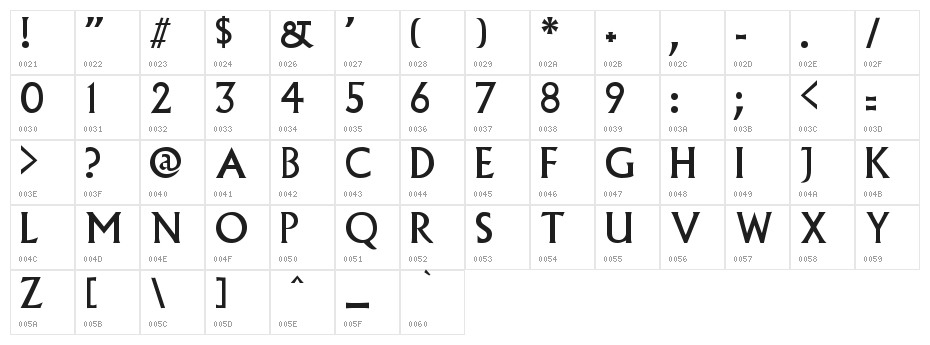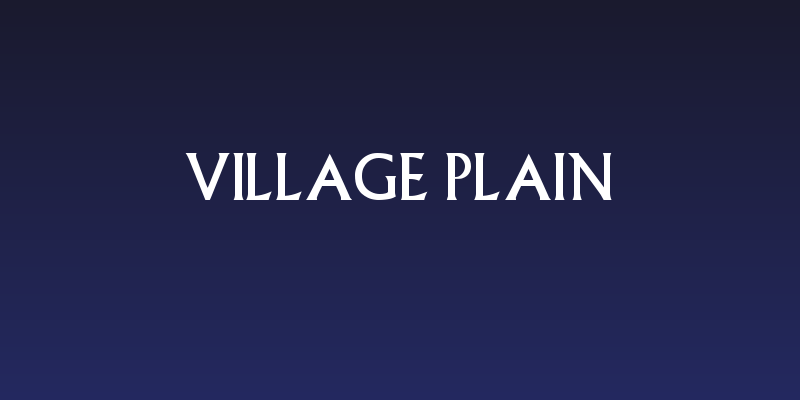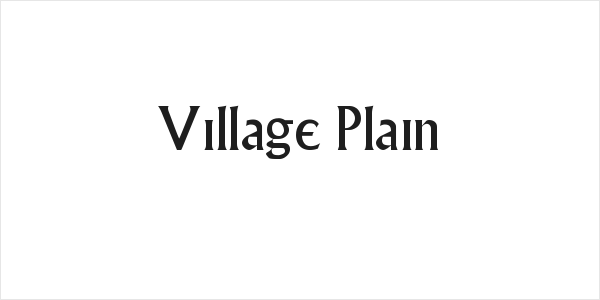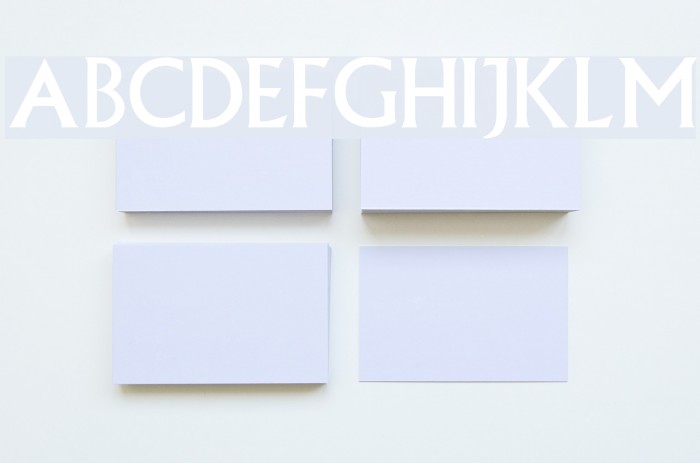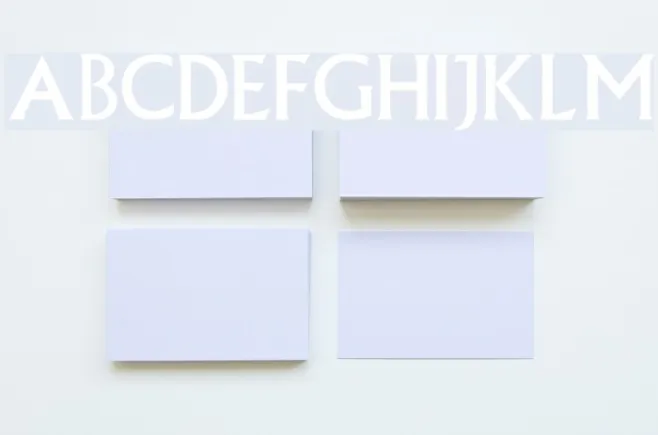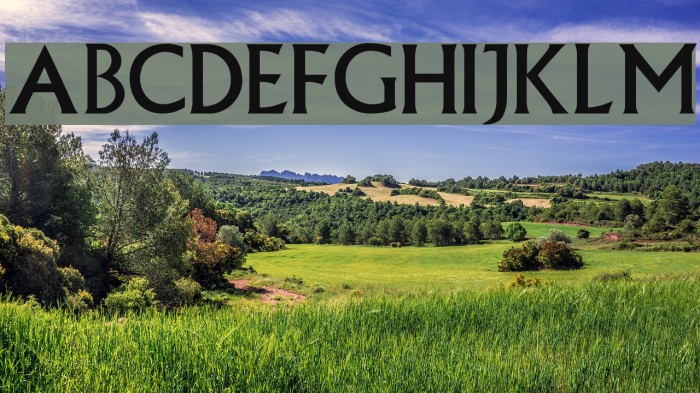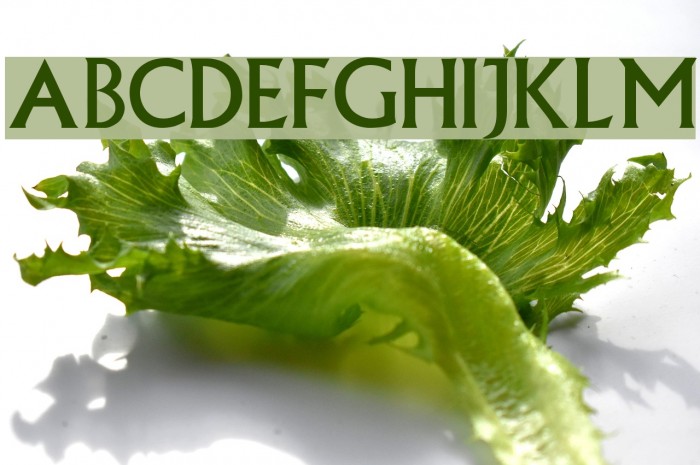
Village Plain Font
Village Plain Description
This font exhibits a classic serif style with a strong presence and elegant curves. The uppercase letters are bold and commanding, while the lowercase letters maintain a graceful and readable form. The numerals are distinct and well-proportioned, making them suitable for various design needs. Special characters are crafted with attention to detail, adding a touch of sophistication. The overall design is balanced, with moderate contrast in stroke thickness, providing a timeless and versatile appearance.